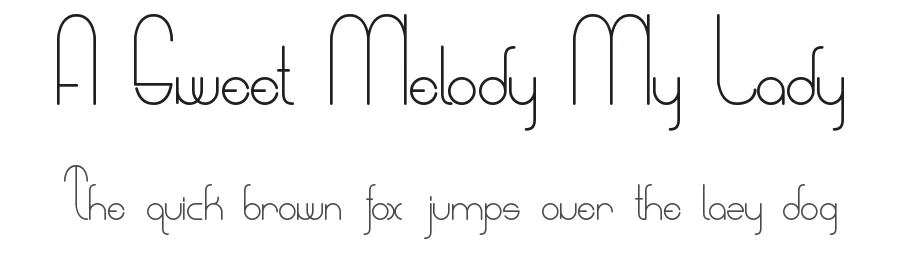
About Arrivals and Departures Font
Arrivals and Departures is a sans-serif font designed by Dismantle Destroy. It includes 227 glyphs, a regular weight, TTF (TrueType) format, and 191 languages. Arrivals and Departures is free to download; check the license details on this page before commercial use. Sans-serif fonts like Arrivals and Departures work best for clean body text, user interfaces, branding, and modern layouts.
| Designer | Matthew Tyndall |
Arrivals and Departures supports 191 languages.
Arrivals and Departures Font is a versatile sans-serif font that works for both headings and body text. Pair it with a contrasting serif or slab serif font to add visual interest and a clear distinction between titles and body copy.